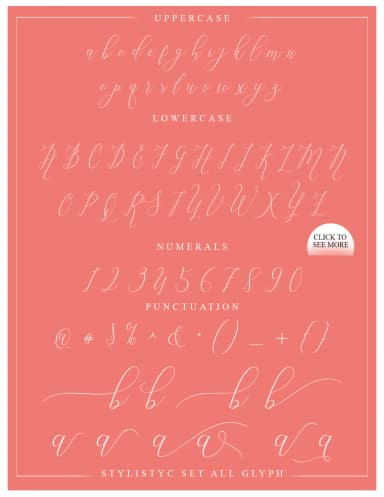
1 / 9About Vegas Style Font
Vegas Style Font by Vegas Type is a flowing script typeface that balances contemporary flair with timeless elegance. Drawing inspiration from the glamour and artistry of classic handwriting, this typeface brings distinctive character and personality to any design application where authenticity and visual impact matter most. The font excels across a diverse range of creative projects. Wedding invitations and formal stationery suites gain sophisticated elegance with its smooth, expressive letterforms. Boutique product packaging, from artisan candles to specialty cosmetics and handmade soaps, benefits from the distinctive voice this script provides. Musicians and artists find it perfect for album artwork and concert promotional materials, while professional hand-lettered sign makers appreciate its natural flow and surprising readability at various sizes. Custom greeting cards, personalized announcements, and special occasion designs become genuinely memorable when rendered in this typeface's signature style. Vegas Style Font works seamlessly across both digital and print applications, making it remarkably versatile for professional designers and creative entrepreneurs alike. Whether you're building a distinctive brand identity, designing styled event materials, or creating custom packaging that stands out on shelves, this script offers the personality and polished refinement that transforms ordinary projects into something your audience won't forget. Discover Vegas Style Font on Creative Fabrica and bring this flowing script to your typographic toolkit.
Vegas Style Font is a script font that shines as a display or heading face. Pair it with a clean sans-serif or serif font for body text β the contrast creates a clear hierarchy while the two styles stay balanced and easy to read.
Vegas Style Font
by Vegas Type